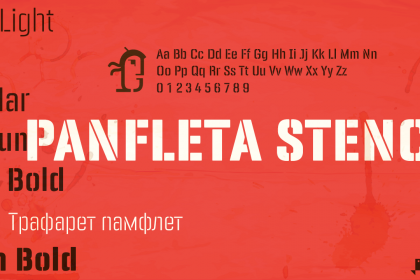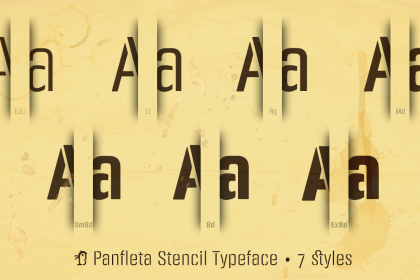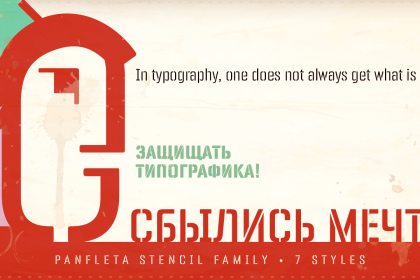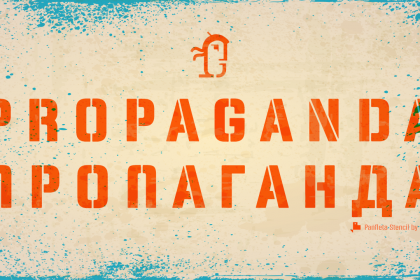
PANFLETA STENCIL FONT
Panfleta Stencil is a rounded typography sans serif, template style with geo-grotesque modulation, condensed, with short descending and ascending above the height of capitals and a high height of the x to compose very legible texts in small sizes. The round finish of the corners bring personality and warmth to the pure geometric development of this typeface. The careful study of the metrics and the meticulous configuration of the Kerning make a set of reliable fonts for use in both editorial design and advertising.
The inspiration for this family of fonts comes from the old pamphlets and political propaganda posters of the early and mid 20th century, in this case the stenciled design adds industrial, military or commercial connotations being perfect for the design of posters, packaging or advertising .
The typography is composed of 7 styles, from the finest (Extra Light) to the thickest (Extra Bold), all of them specially designed for advertising and editorial composition, behaving seriously in paragraph texts as well as in big headlines.